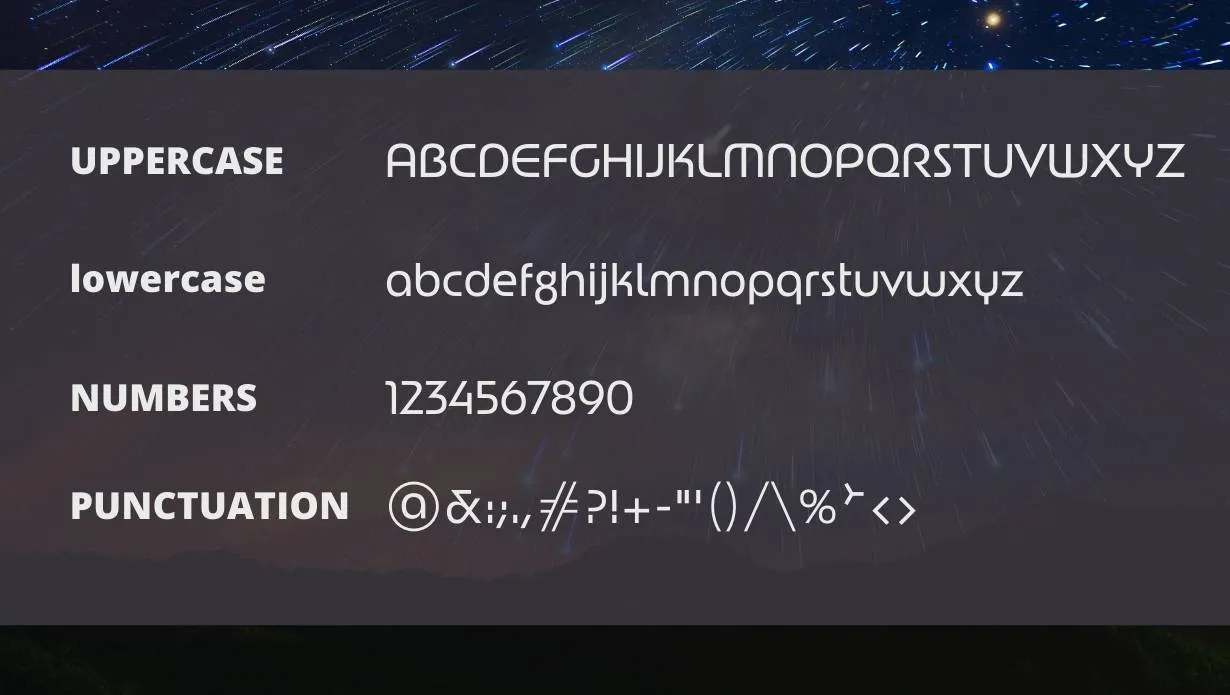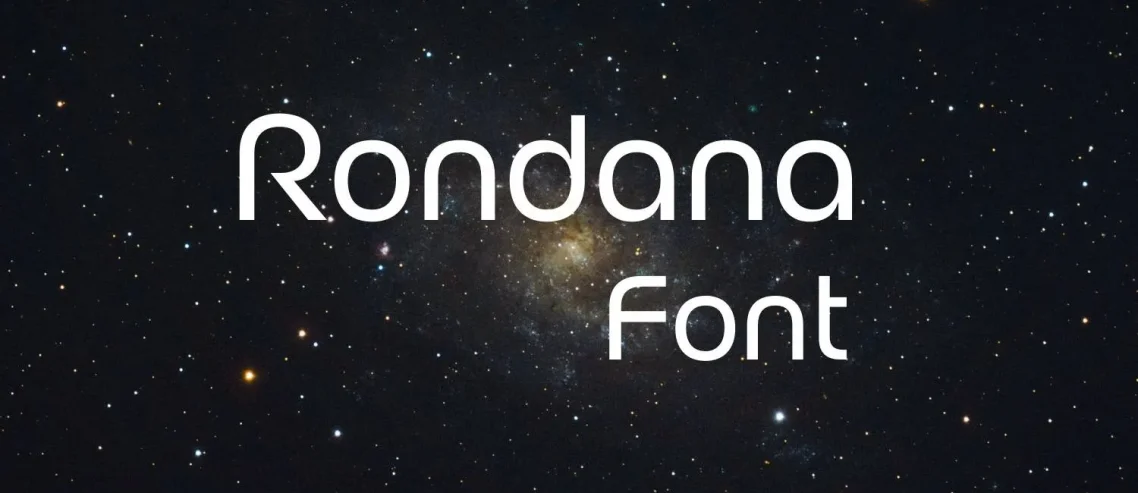
Rondana Font is a sans-serif typeface with low contrast and a large x-height, created by Spanish graphic designer Raul Garcia del Pomar. The family includes six weights (Light, Book, Regular, Medium, Bold, and Black), each with corresponding italics.
Rondana Font Info
| Name | Rondana Font |
| Designer | Raul Garcia del Pomar |
| Style | Sans Serif |